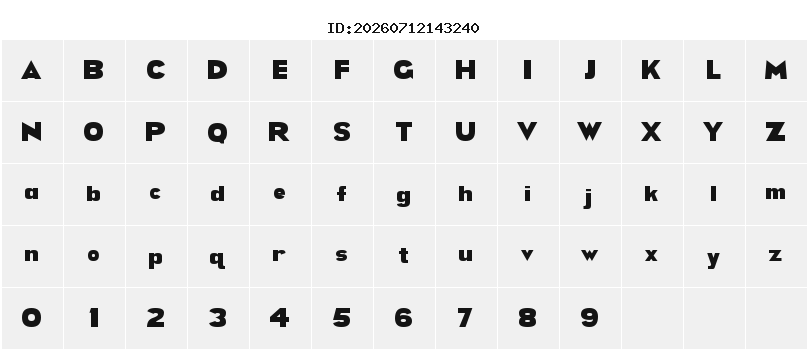
• Font Name: Ravenwood
About Ravenwood.ttf
Ravenwood.ttf is a modern, elegant sans-serif font designed for ultimate readability and visual harmony. Perfect for branding, headlines, web design, and print materials.